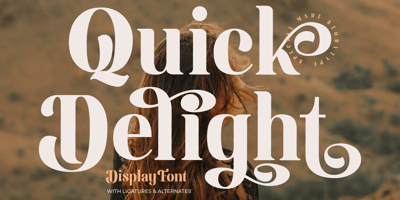
Quick Delight Font Family was designed by Heru Utama Putra and published by Letterena Studios. Quick Delight contains 2 styles and family package options. Quick Delight is a modern and stylish serif font described by a unique charm. Extremely versatile and elegant, this typeface is suitable for a wide spectrum of projects that require a refined look.